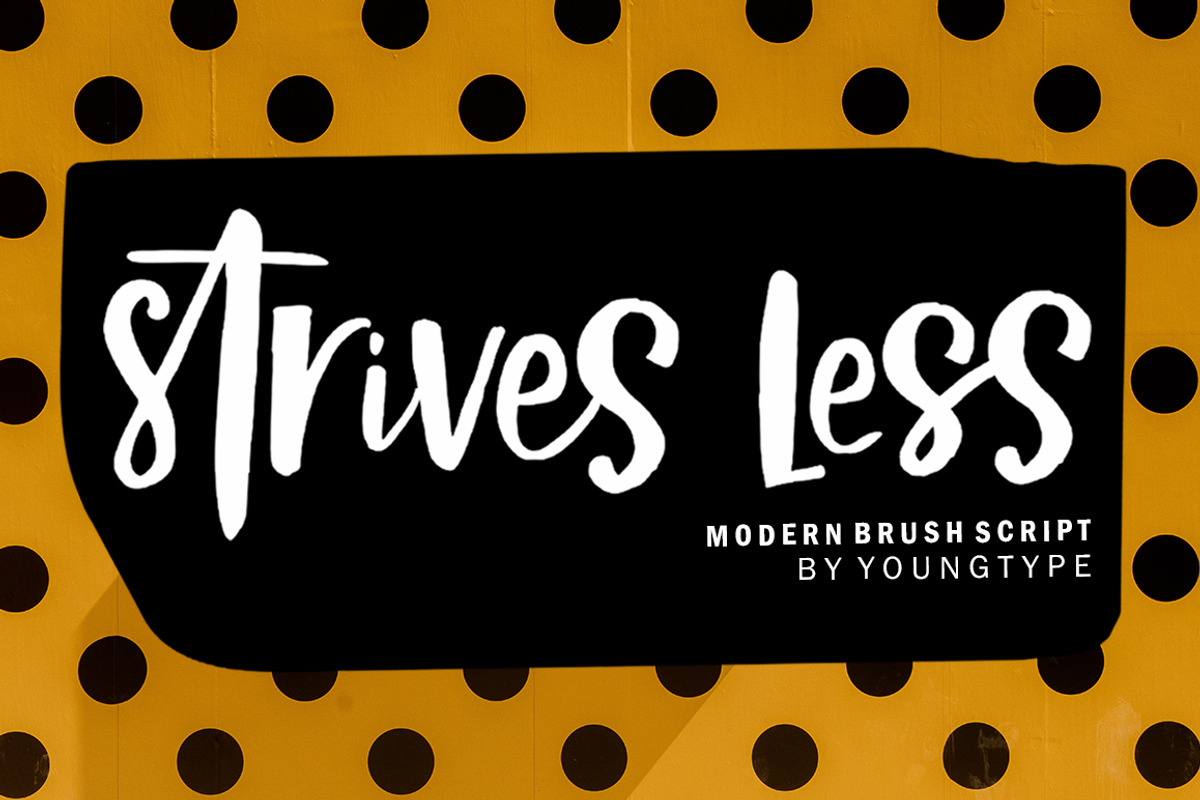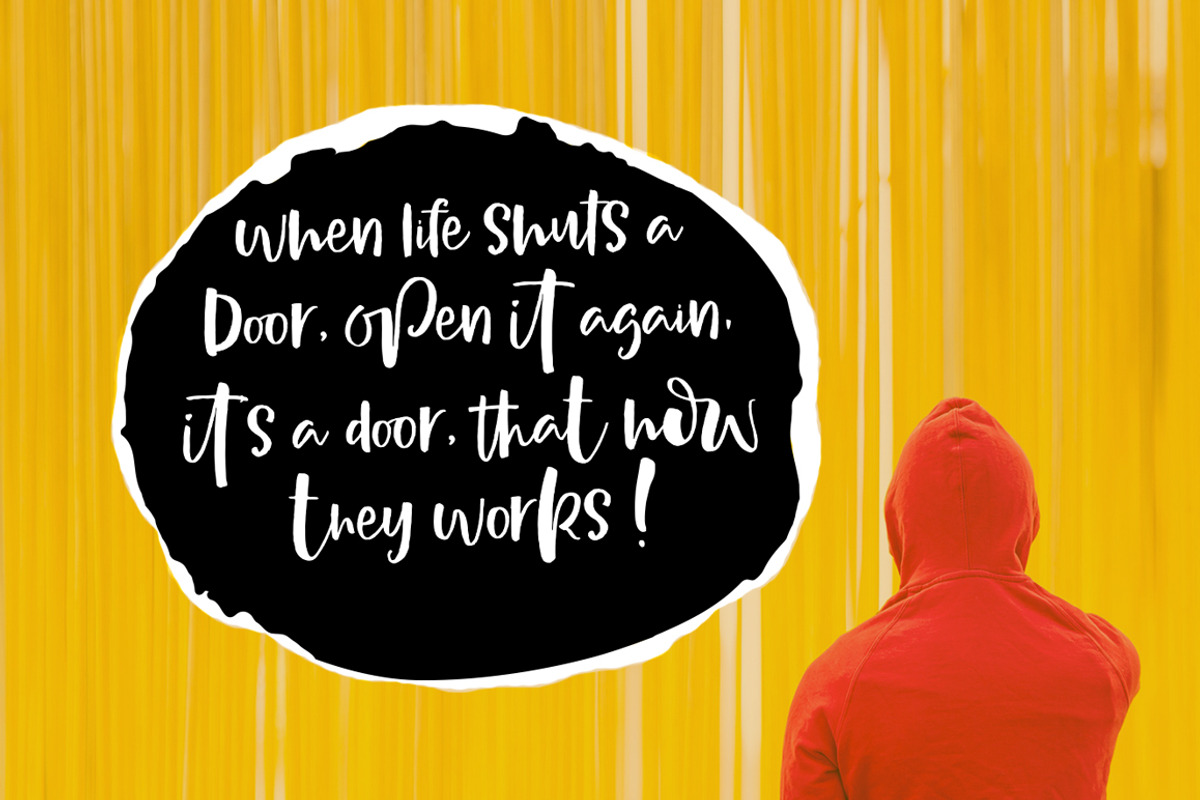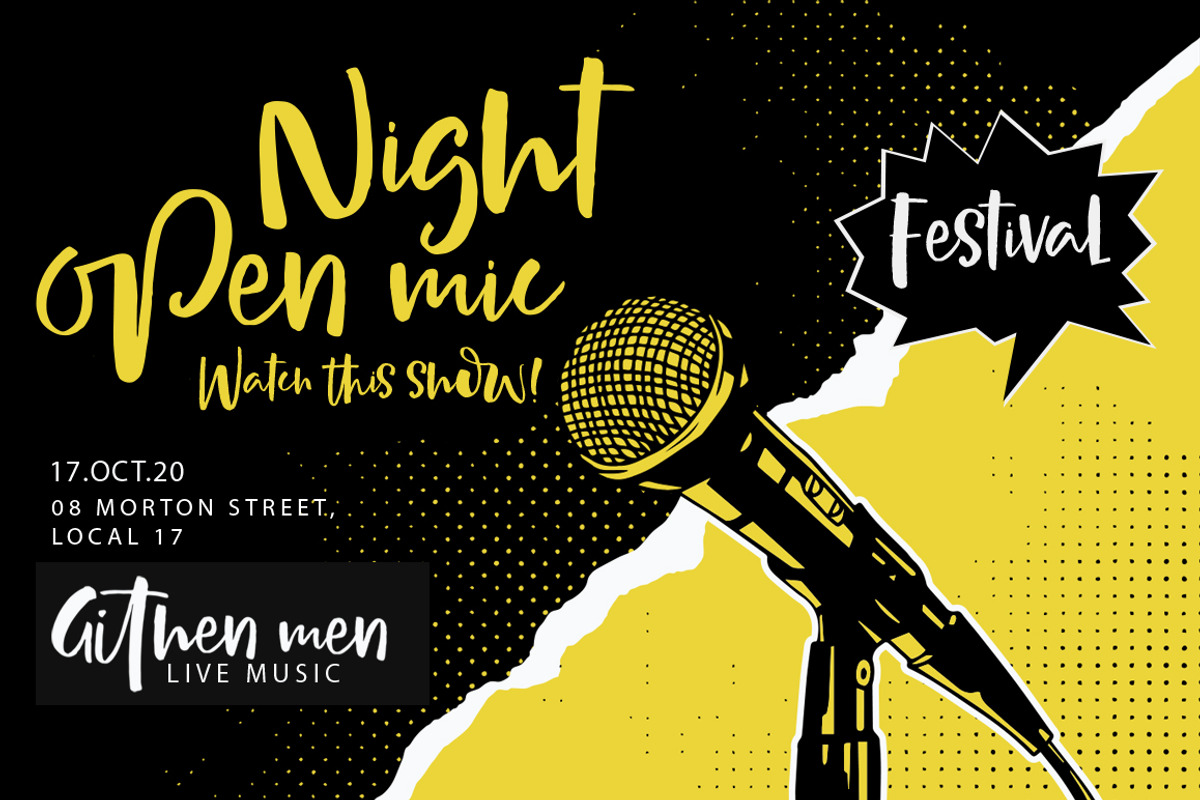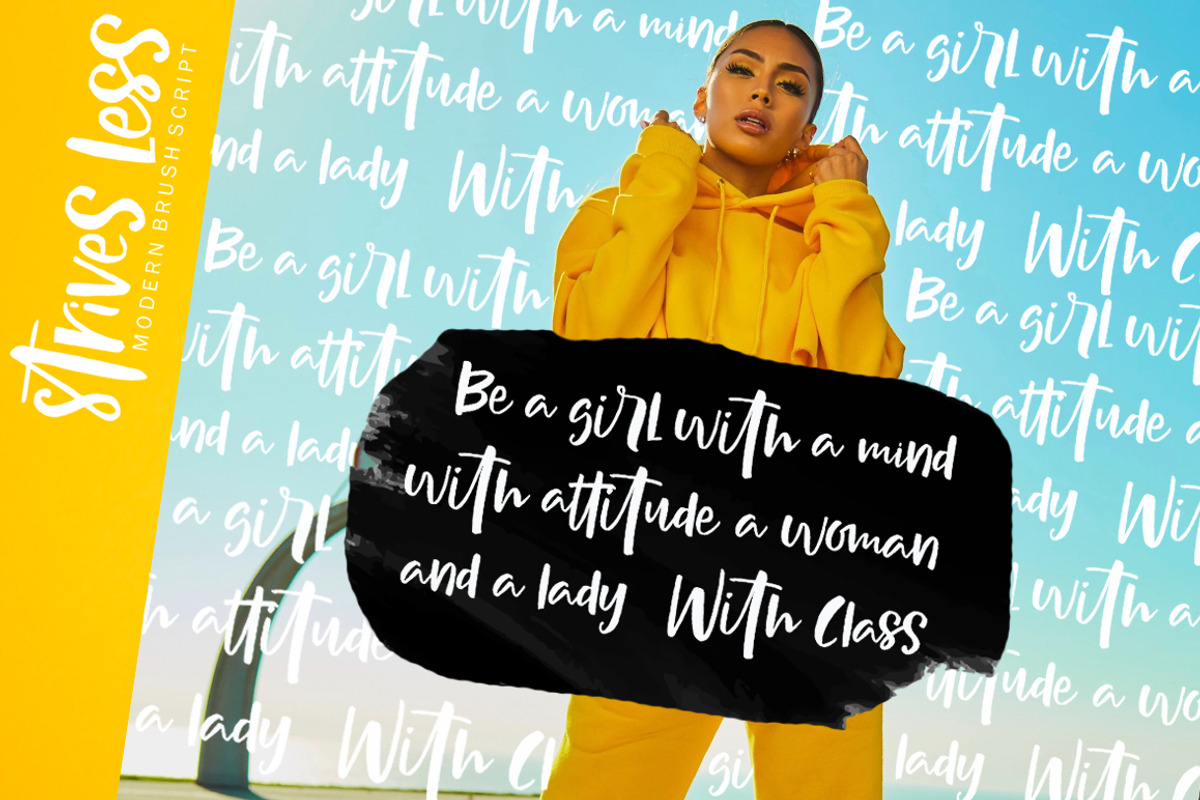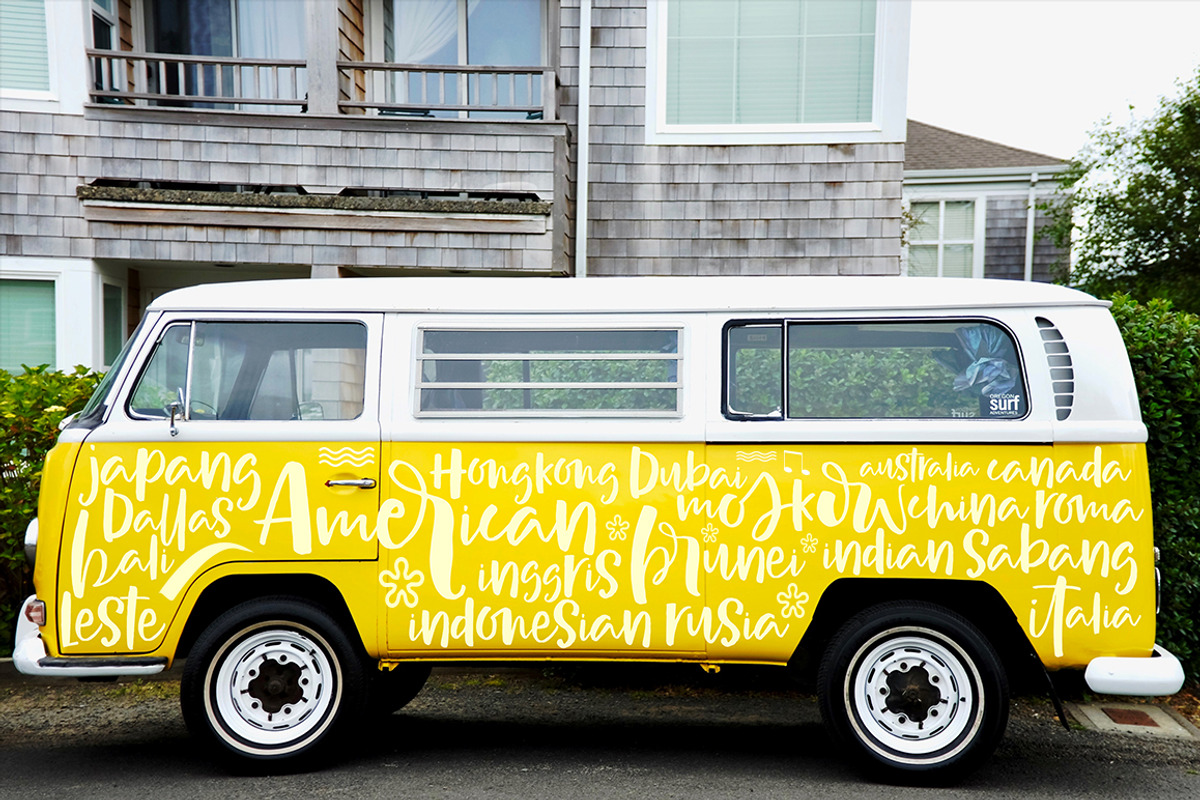
Strives Less
Strives Less script is a hand brush font made with brushes and ink. This typeface is ideal for use in thick watercolor designs or handwriting styles, such as blog titles, posters, wedding elements, t-shirts, clothing, book covers, business cards, greeting cards, branding, merchandise etc.